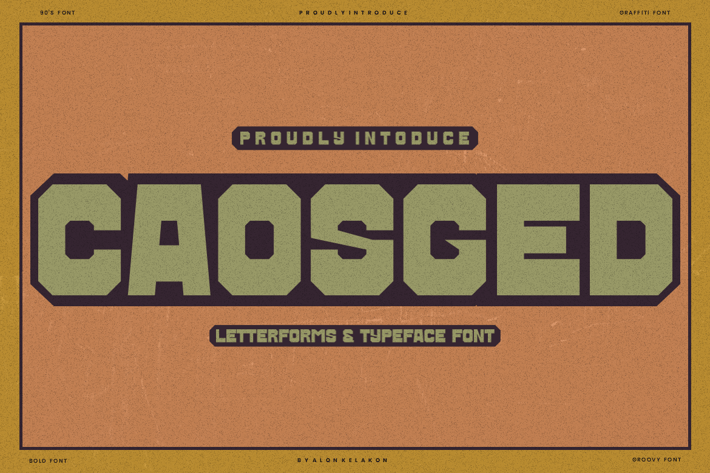
Caosged - Retro & Rough Font
Caosged Font is unique . Ready to use for your design like labeling, movie sceen, poster, movie title, gigs, album covers, logos, and much more.